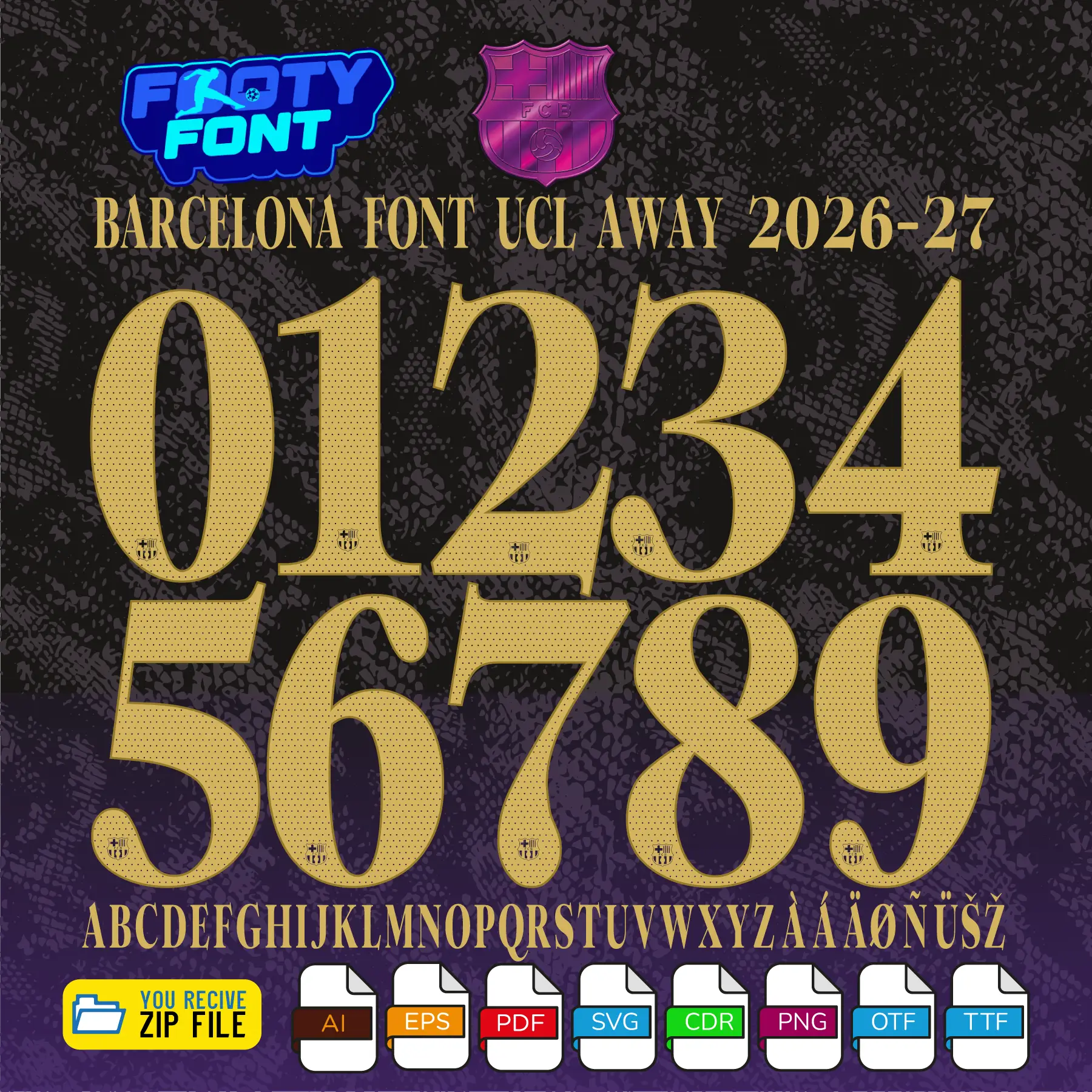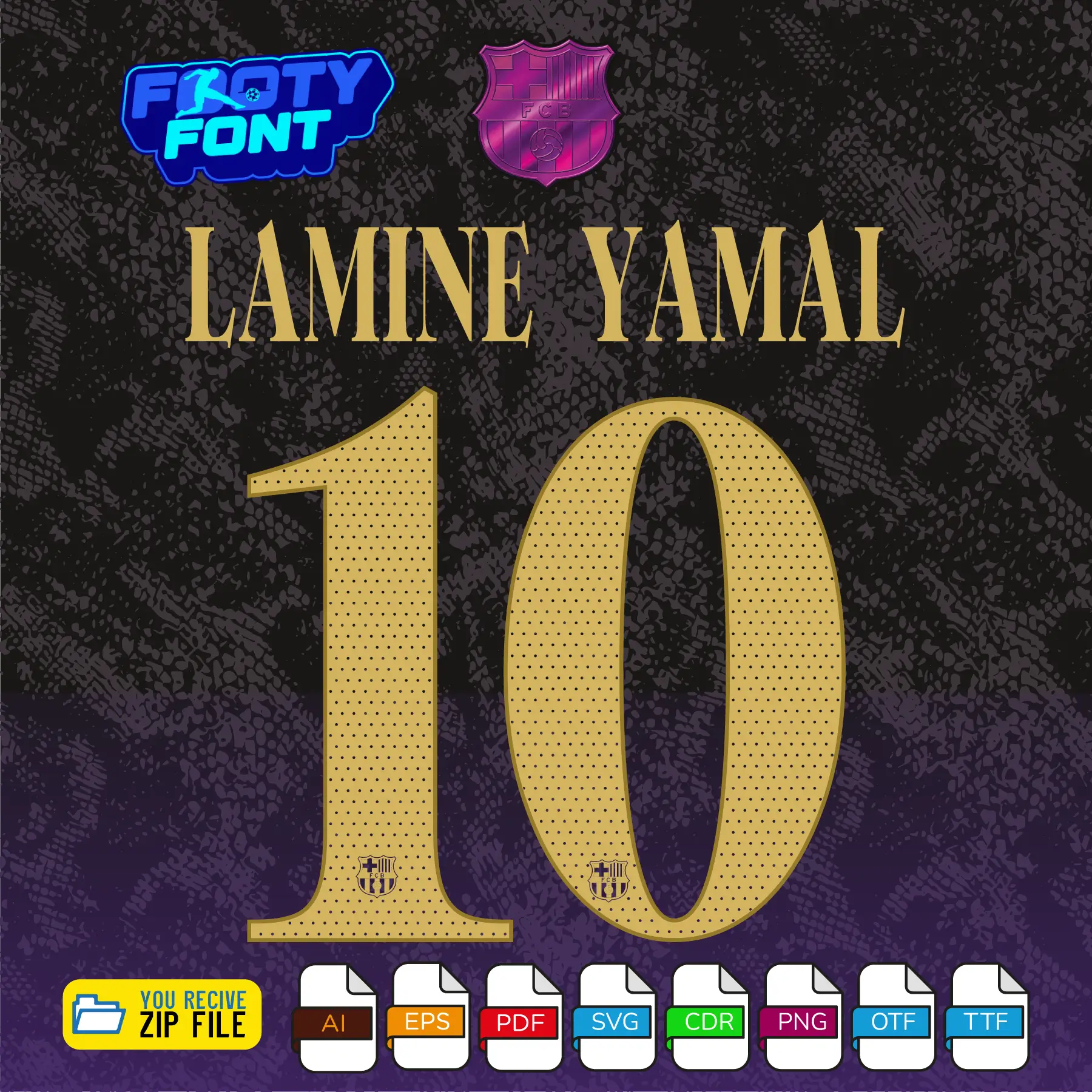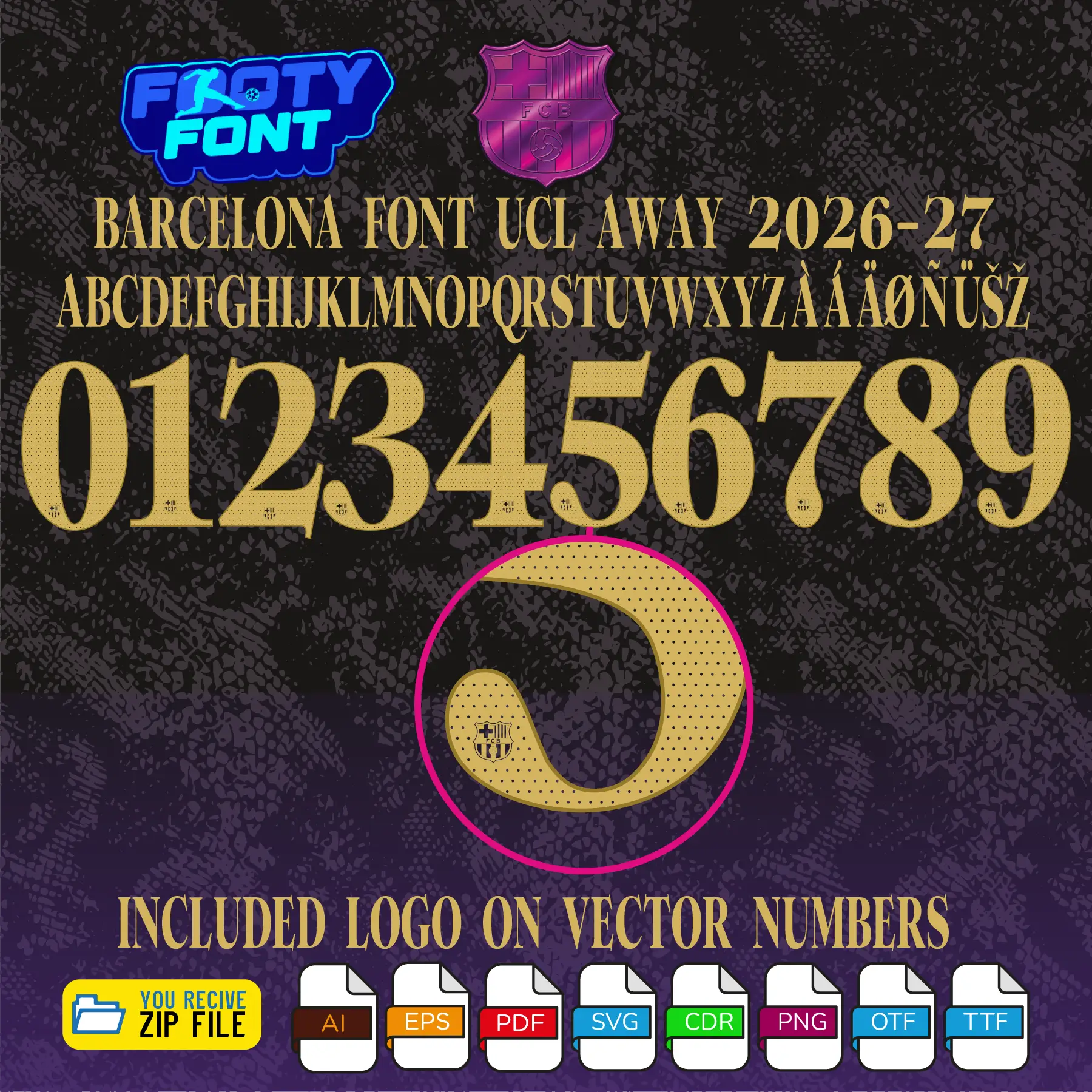
FC Barcelona 2026-27 Football Font
Bring the magic of the Camp Nou on the road to your designs with this font football, inspired by the FC Barcelona 2026-27 UEFA Champions League away kit. This high-quality typeface is meticulously designed to replicate the elegant, custom lettering worn by La Blaugrana during their European away fixtures. It features striking, metallic gold numbers with a highly detailed internal stippled dot texture that perfectly complements their dark, sophisticated alternative jerseys.
This font football captures the elite style worn by global superstars and La Masia prodigies like Lamine Yamal, Pedri, and Gavi. As FC Barcelona travels to compete for European glory, this away font is an absolute must-have for fans creating custom jersey designs, digital art, streetwear, or matchday posters.
Use this font to bring authentic Spanish football style into your designs-whether for custom jersey graphics, fan merchandise, posters, or social media content.